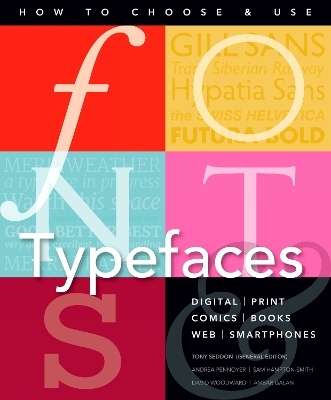
Fonts and Typefaces Made Easy
Getting to grips with the fonts and typefaces is an essential path to successful design, whether your work is online, in print or just for fun. Typography subtly conveys meaning, complements or challenges, but with so many fonts and font styles to choose from it can be confusing to know where to start. This fantastic new book runs through the classes of type, with examples of individual fonts, extensive case studies, and shows you how to create the best designs, every time. Perfect for traditional and digital use.